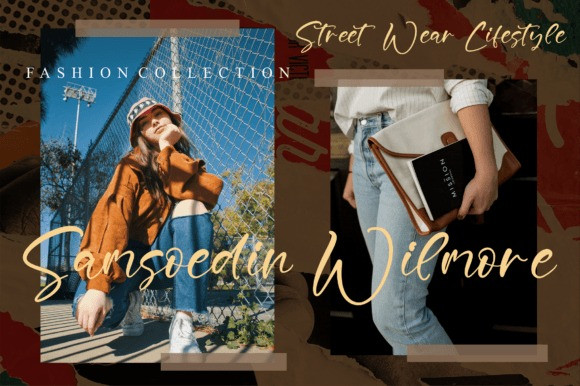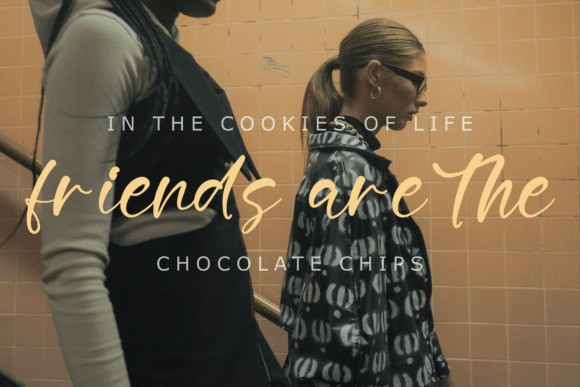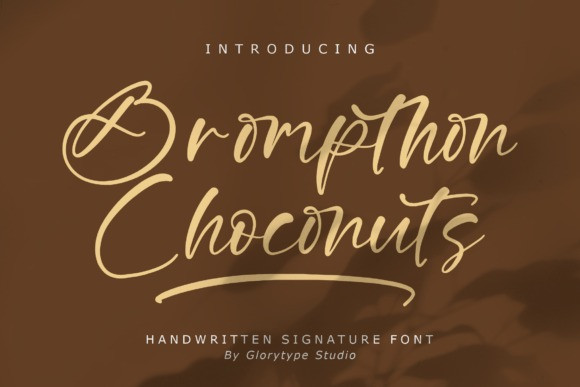
Brompthon Choconuts Font
Brompthon Choconuts Script Font is a dazzling script font. This font is neatly crafted and highly detailed. Whatever the topic, this font will be a wonderful asset to your font library, as it has the potential to enhance any creation. This font is PUA encoded which means you can access all glyphs and swashes with ease!